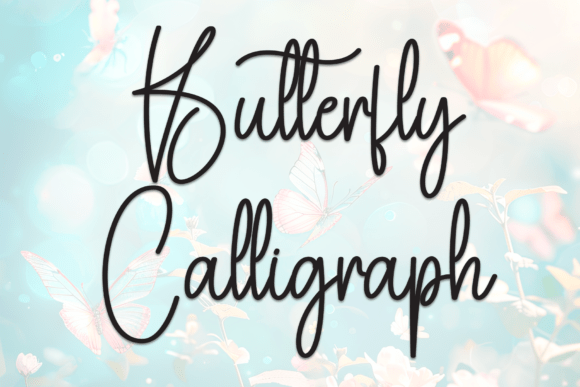
The Art of Elegant Typography
As a designer, have you ever stared at a blank canvas, searching for the perfect font to bring your creative vision to life? You’re not alone. We’ve all been there, pouring over font collections, trying to find that one special typeface that captures the essence of our project. For me, that moment came when I stumbled upon the Butterfly Calligraph Font. Its flowing curves and natural rhythm immediately drew me in, and I knew I had to learn more.
The Butterfly Calligraph Font is a stylish handwritten script font that adds a personal, charming touch to any project. From invitations to branding and social media, its elegant design brings warmth, sophistication, and creativity to the table. As a designer, you’ll appreciate the flexibility and versatility of this font, making it a valuable addition to your toolkit.
Butterfly Calligraph Font Key Features
- Font Style: Handwritten, Calligraphic Script
- Unique Characteristics: Elegant, flowing script with subtle flourishes and ligatures, ideal for wedding invitations, greeting cards, and other creative projects
- Language Support: Supports Latin-based languages, including English, Spanish, French, German, Italian, and more
Designer Review: Butterfly Calligraph Font
I recently had the chance to work with the Butterfly Calligraph Font, and I must say, it’s a unique and eye-catching addition to any design project ✨. The flowing, cursive script is reminiscent of classic calligraphy, but with a modern twist that makes it feel fresh and exciting. The font is particularly well-suited for titles, headings, and any other text that needs to stand out.
Here are some of the things I like about Butterfly Calligraph Font:
- It’s incredibly versatile and can be used in a wide range of design projects, from wedding invitations to branding materials.
- The font is highly customizable, with a wide range of options for adjusting size, color, and spacing.
- The cursive script is easy to read, even in smaller sizes, making it perfect for body text or other large blocks of text.
However, there are a few limitations to keep in mind ⚠️:
- The font can be a bit overwhelming if used too extensively, so it’s best to use it in moderation to avoid visual fatigue.
- The font may not be suitable for projects that require a more formal or professional tone.
- The font’s irregularities can make it difficult to pair with other fonts, so you may need to choose a more compatible pairing.
Overall, I think Butterfly Calligraph Font is a great addition to any designer’s toolkit, but it’s not for every project. With a little creativity and restraint, it can add a touch of elegance and sophistication to even the most mundane design tasks.
Getting the Most Out of the Butterfly Calligraph Font
To get the most out of the Butterfly Calligraph Font, use it for:
2. Handwritten-style quotes and graphics.
3. Vintage-inspired designs.
4. Personalized gift tags and cards.
The Butterfly Calligraph Font is commonly used for:
1. Wedding and event invitations.
2. Personalized stationery and greeting cards.
3. Handmade gift tags and wrapping paper.
4. Social media graphics and posts.
Alternatives to Butterfly Calligraph Font